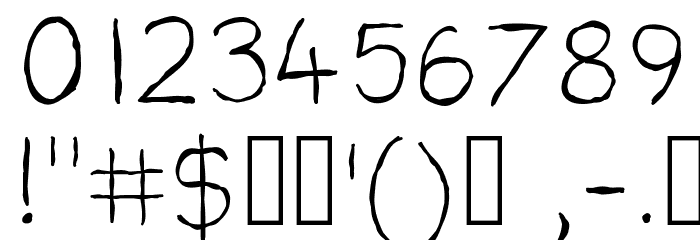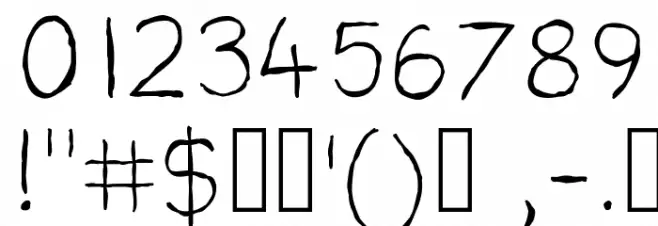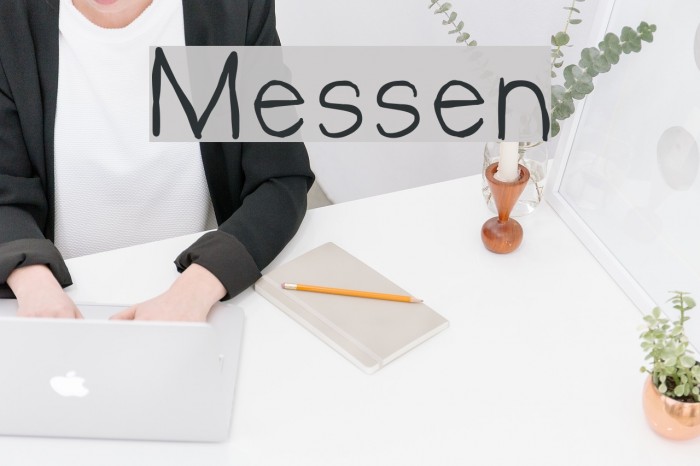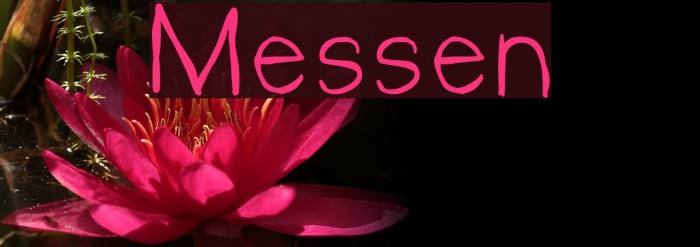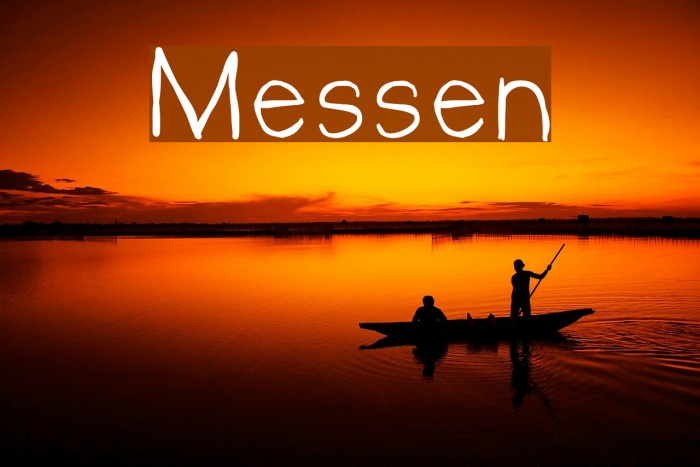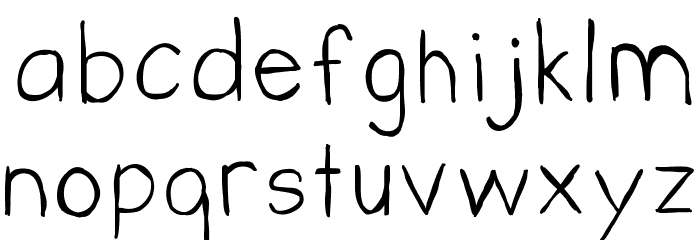
Messen Font
Messen Description
This font features a playful and casual handwritten style, characterized by its uneven strokes and slightly irregular shapes. The uppercase letters maintain a consistent height, while the lowercase letters exhibit a charming variability in size and form, adding to its informal appeal. The numerals are straightforward, matching the overall hand-drawn aesthetic. Special characters are included, maintaining the same whimsical style. This font is ideal for projects that require a personal touch or a relaxed, friendly vibe.
A playful, handwritten font with uneven strokes and a casual style from Handwritten fonts.
- Proposed Projects: Great for greeting cards, children's books, casual invitations, and personal blogs.
- Overall Style: Casual, Playful
- Use Case: Headlines, Informal text, Personal projects